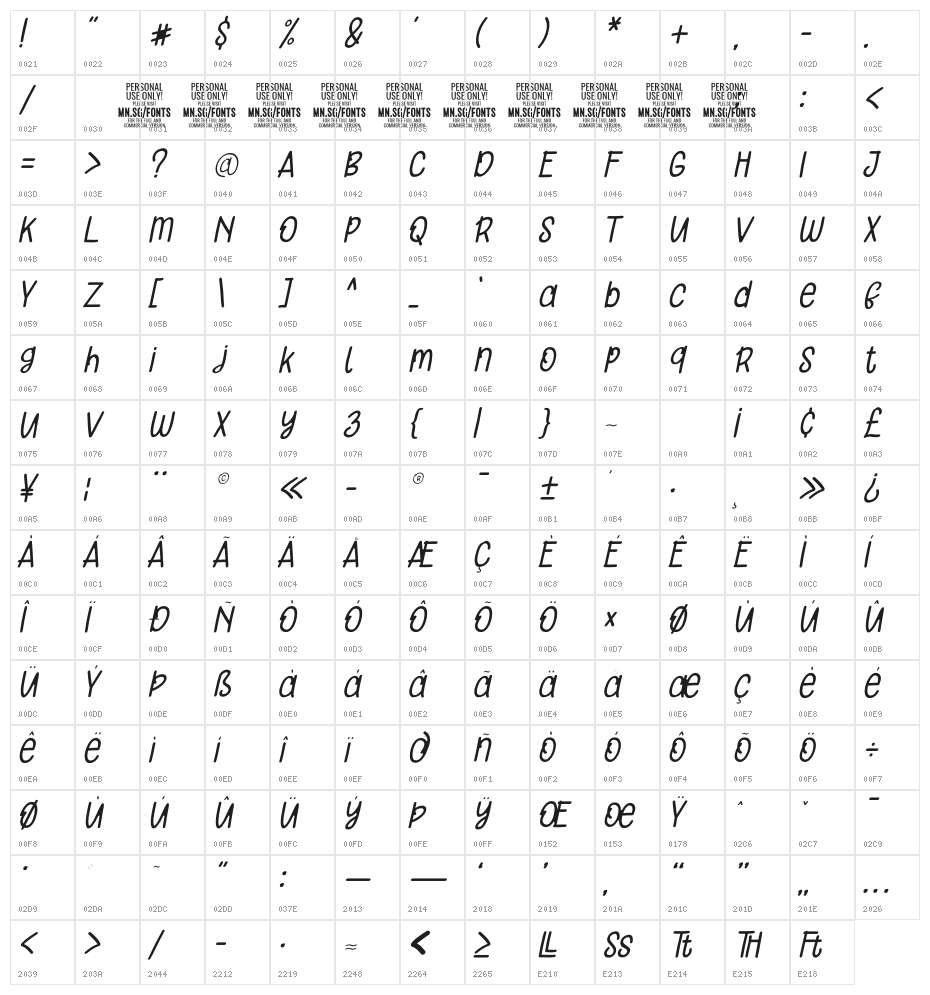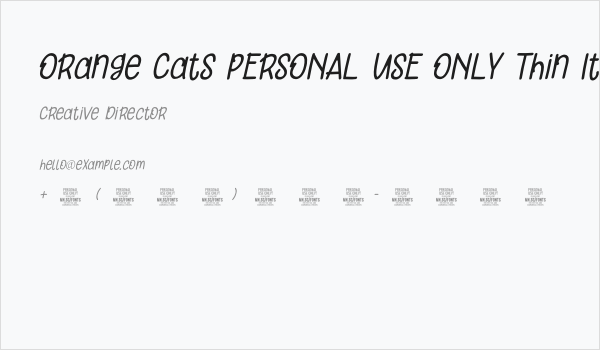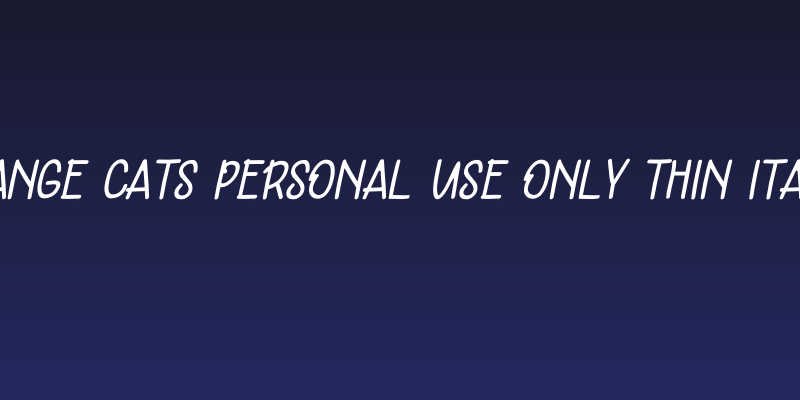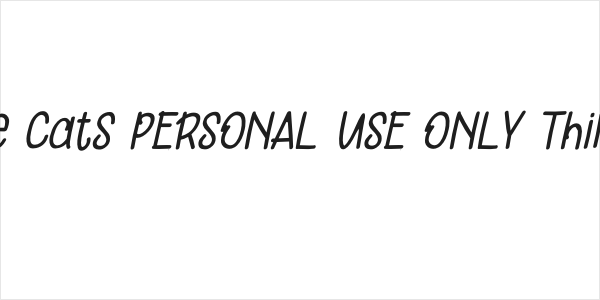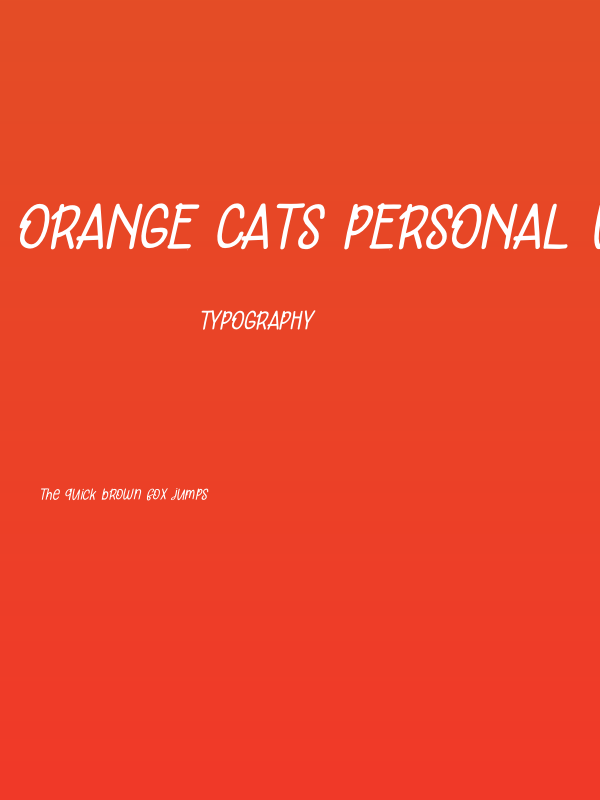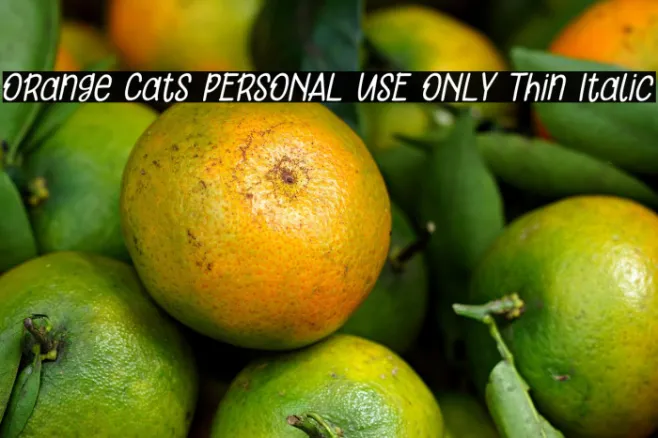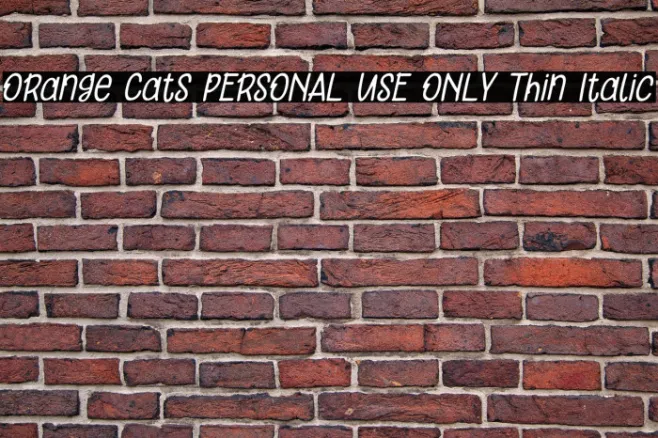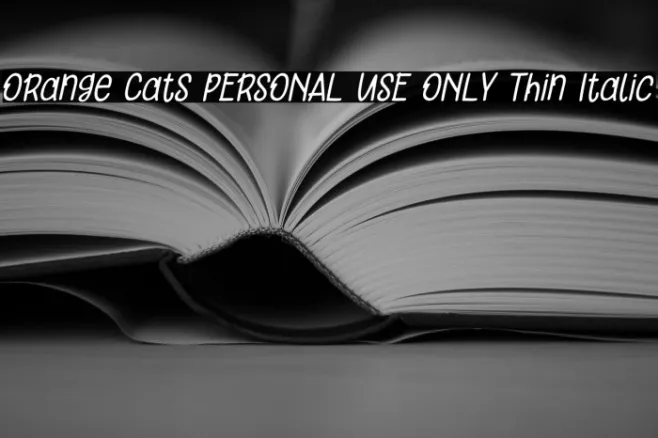
Orange Cats PERSONAL USE ONLY Thin Italic Font
Orange Cats PERSONAL USE ONLY Thin Italic Description
This font features a playful and casual script style with a thin, italicized form. The characters are slightly slanted, giving a dynamic and flowing appearance. The strokes are smooth and consistent, with rounded edges that enhance its friendly and approachable look. The uppercase and lowercase letters maintain a cohesive style, while the numerals and special characters complement the overall design. This font exudes a sense of informality and creativity, making it suitable for projects that require a personal touch.